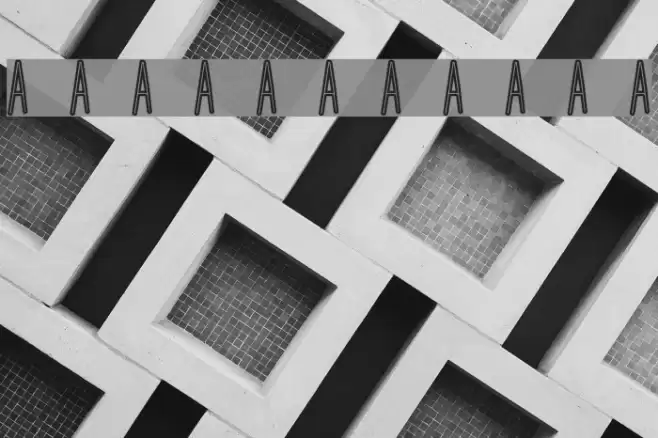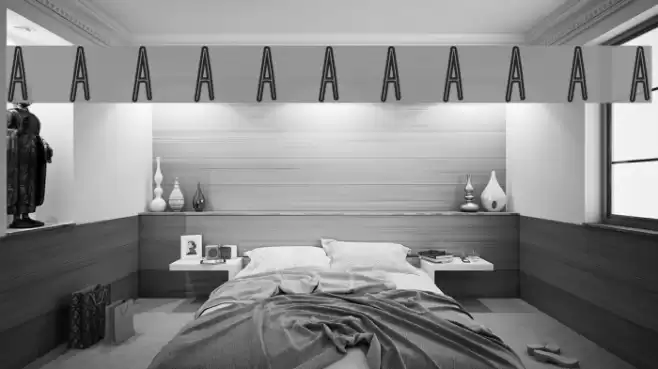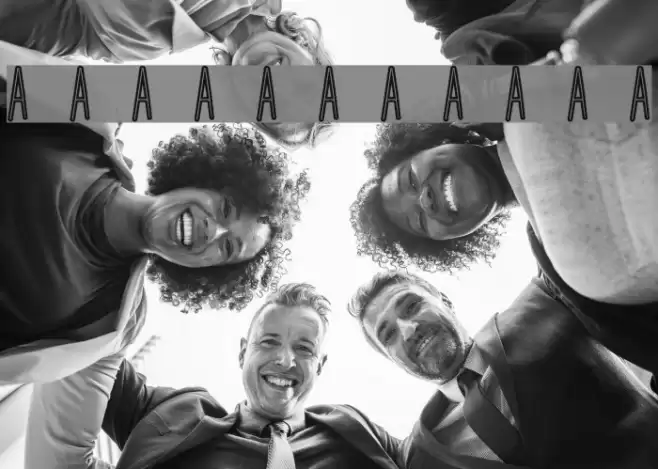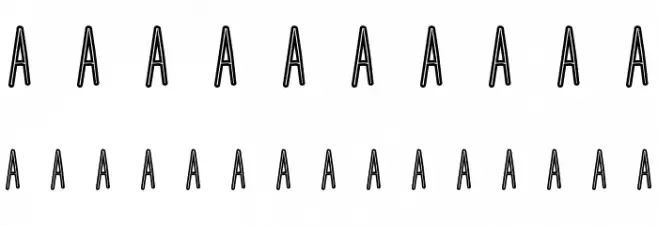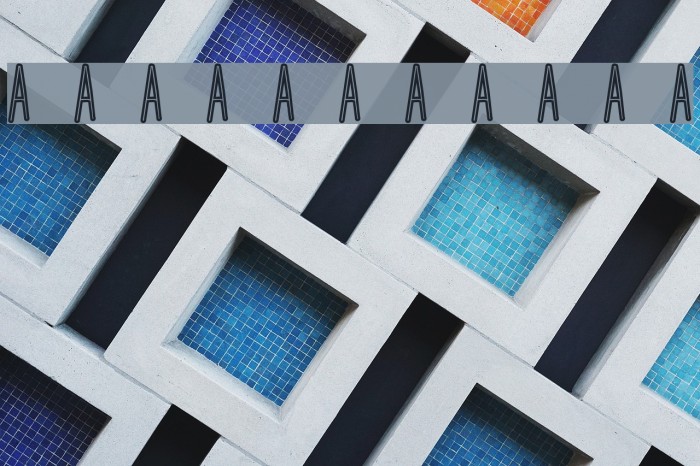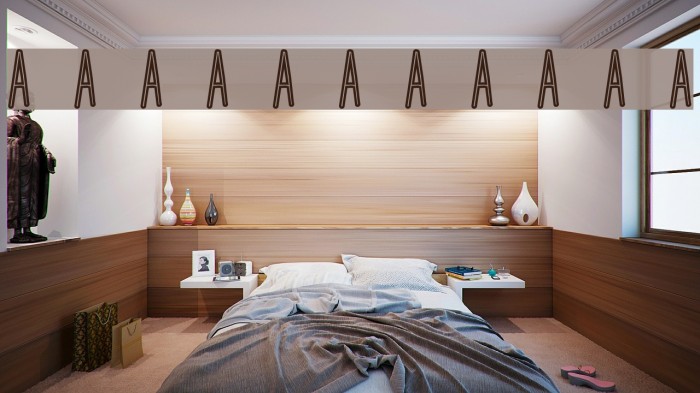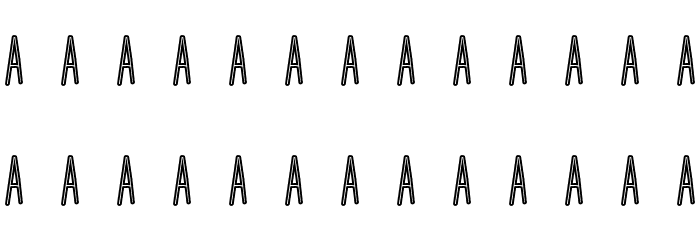
Cheese-Cake Font
Cheese-Cake Description
This image does not display a valid font. It consists of repeated instances of the letter 'A' in a consistent pattern. The letter 'A' is presented in a bold, outlined style, but no other characters or variations are visible to assess the full characteristics of a font. Without additional letters, numbers, or symbols, it is impossible to provide a comprehensive description or analysis of a complete typeface.